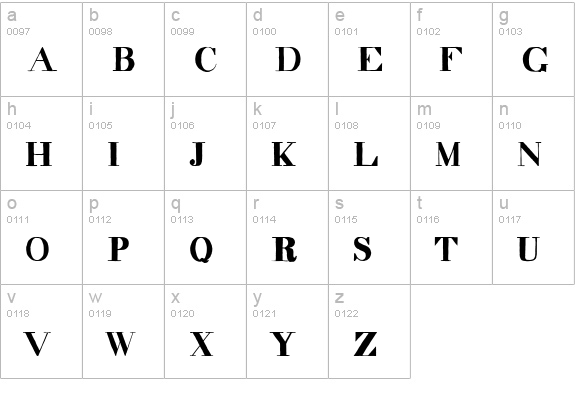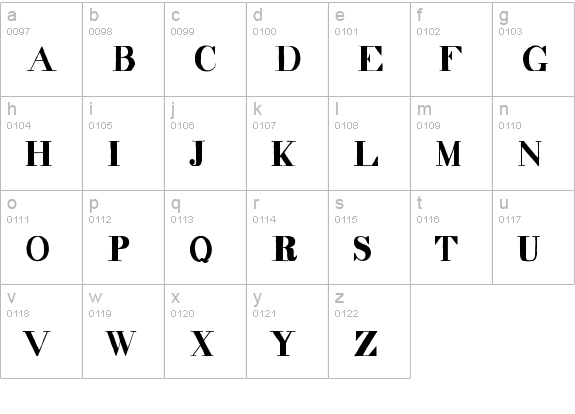
decadence itd condensed is a distinctive, condensed-width variant in the decadence typeface family \xE2\x80\x94 well suited to design and typography projects.
Decadence ITD Condensed Font is a bold and sophisticated typeface that exudes elegance and luxury. With its sleek lines and modern design, this font is perfect for adding a touch of glamour to any project. Whether you're designing a high-end fashion magazine or a chic branding campaign, Decadence ITD Condensed Font will make a statement. And the best part? It's completely free to download at FontsMarket.com. So go ahead and elevate your designs with this exquisite font today!